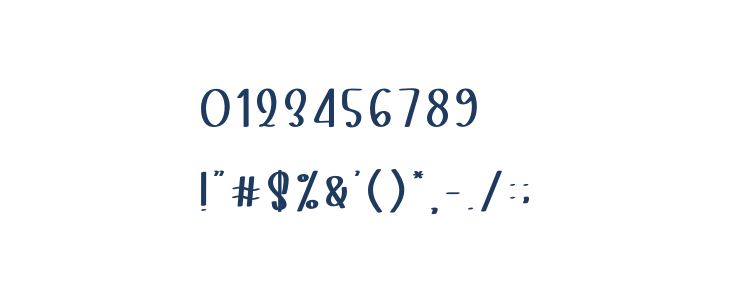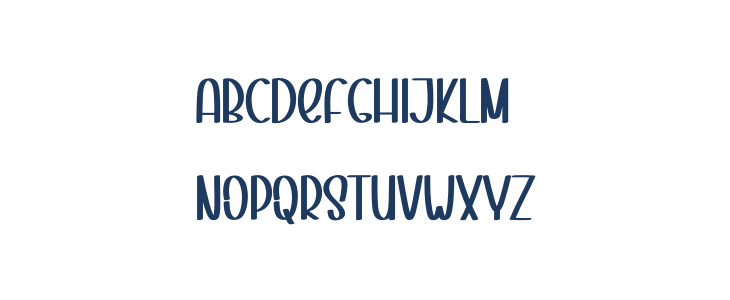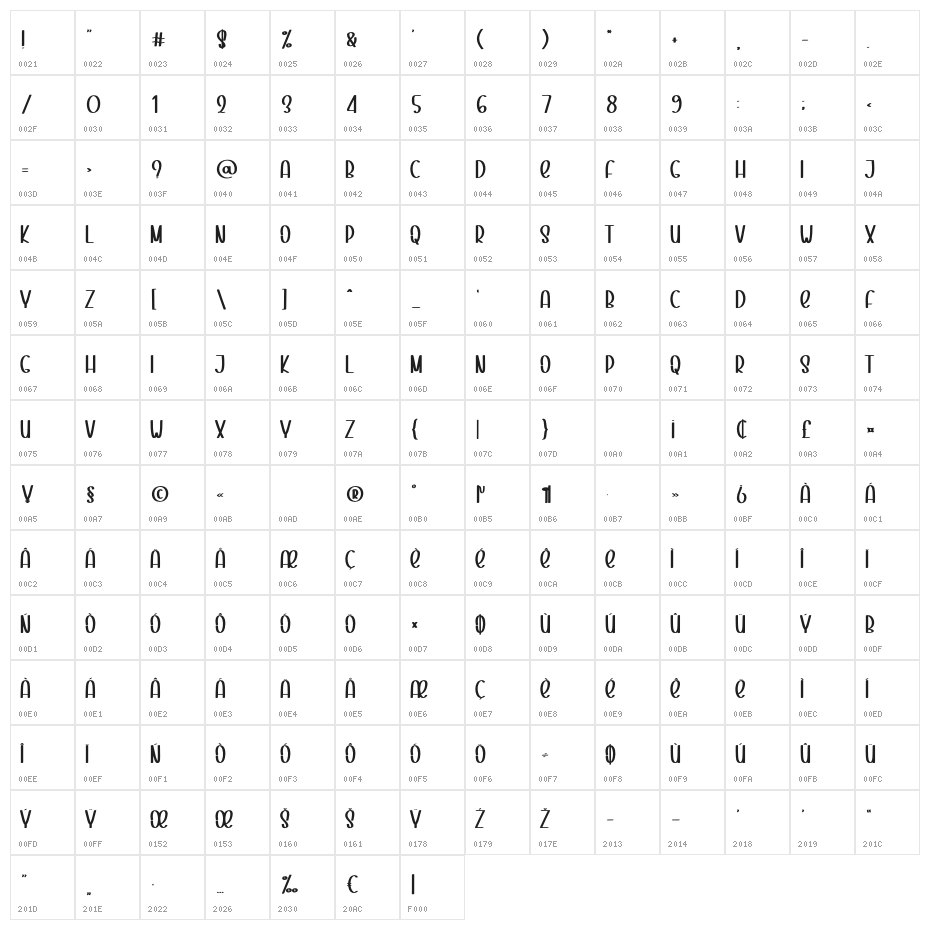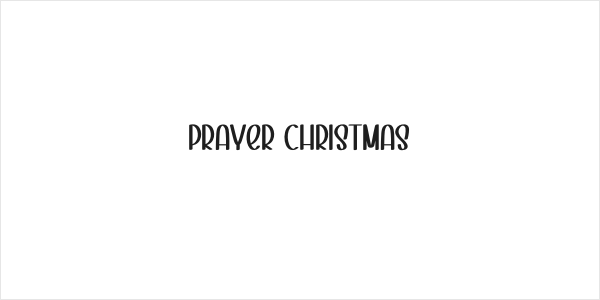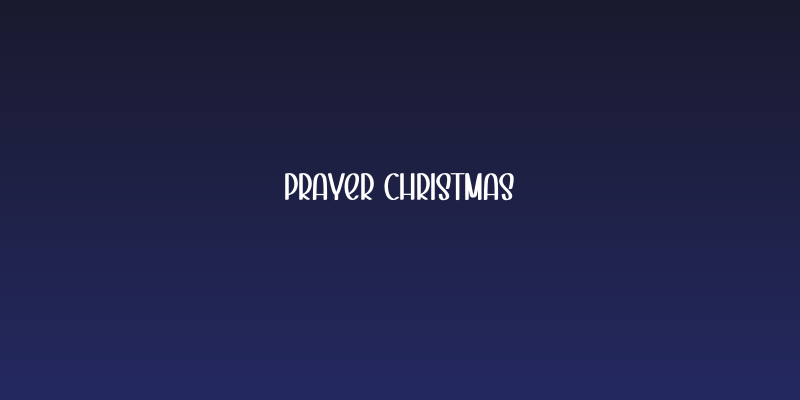
Prayer Christmas Font
Prayer Christmas Description
A playful, rounded sans-serif font with tall, narrow letterforms and subtle decorative curves, giving it a whimsical and friendly appearance. The strokes are consistent in thickness, and the characters have a hand-drawn, slightly informal feel.
| Overall Style | Decorative, Playful, Modern |
| Use Case | Headlines, Logos, Posters, Invitations |
| Proposed Projects | Greeting cards, holiday invitations, children's books, festive posters, playful branding. |